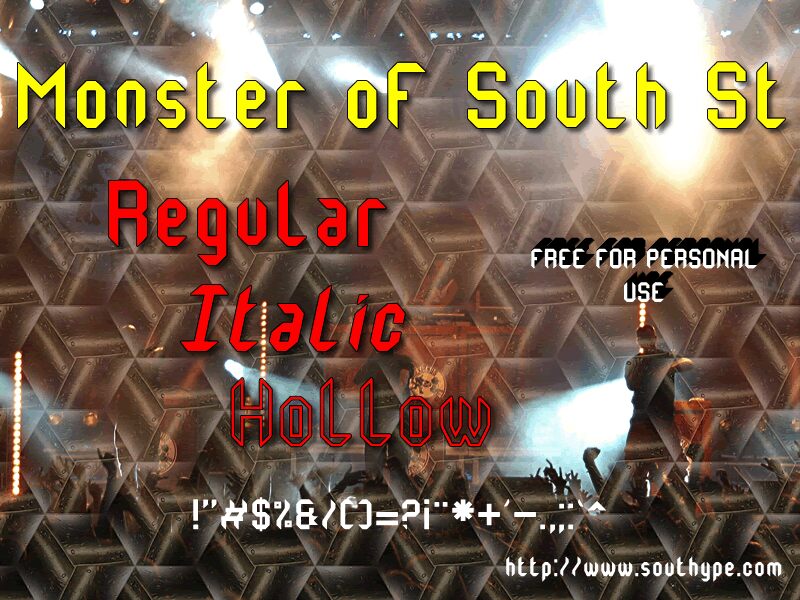
Monster of South St is a captivating display font that exudes a bold and avant-garde aesthetic. Designed by the Southype foundry, this condensed typeface boasts a striking techno-inspired style, with sharp, angular letterforms that evoke a sense of raw, industrial power. The italic variant adds a dynamic, asymmetrical flair, lending the font a unique and eye-catching personality.
This font's uncompromising visuals make it a compelling choice for a wide range of design applications, from editorial layouts and branding to packaging and event collateral. Its condensed width allows for versatile typographic compositions, while the distinctive character shapes ensure maximum impact, particularly in large-scale applications.